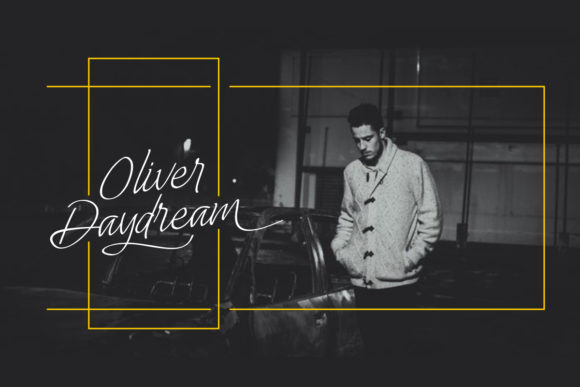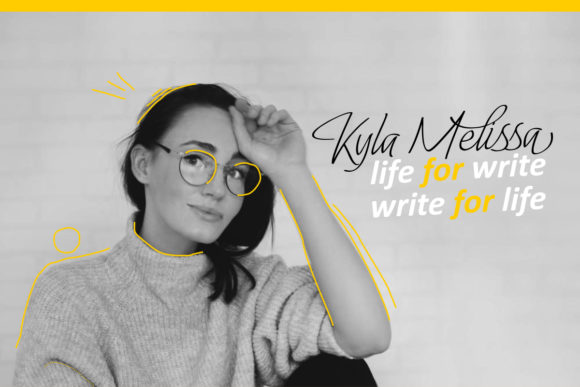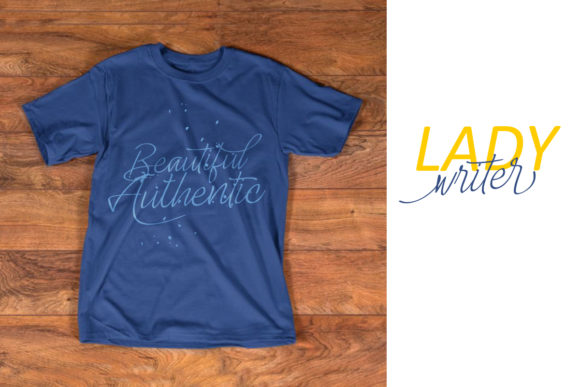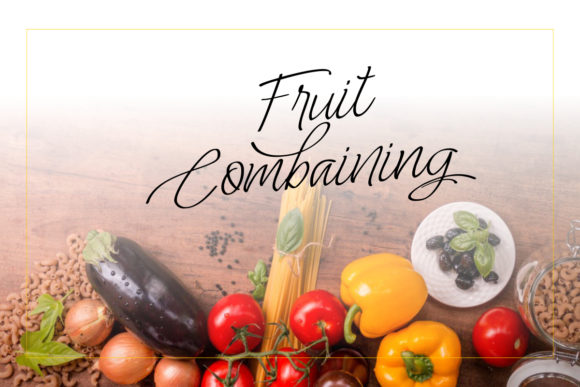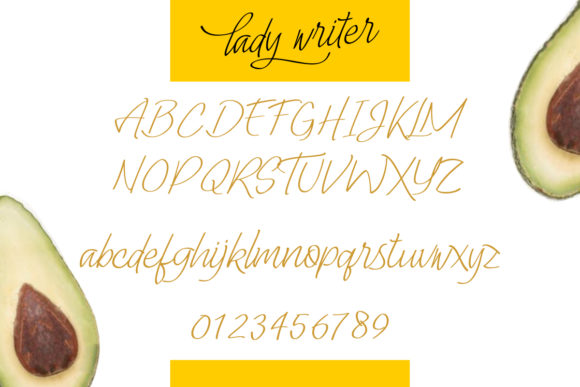
HomeScript FontsLady Writer Skinny Font Script Fonts Lady Writer Skinny Font FacebookXPinterestWhatsApp Lady Writer Skinny Font Poster 2 Lady Writer Skinny Font Poster 3 Lady Writer Skinny Font Poster 4 Lady Writer Skinny Font Poster 5 Lady Writer Skinny Font Poster 6 About Lady Writer Skinny Font Lady Writer Skinny is a sophisticated script font. Get inspired by its unique fresh style! DOWNLOAD ON CREATIVE FABRICAThis font is sold and delivered by Creative Fabrica. Font Canyon may earn a commission if you buy through this link. People also explored Southport Font Bajt Rounded Aljameela Font Carick Font Pink Flowers Font Billie Elishe Font Zell Font Tallented Font Rainbow Children Font 297 0 TagsLady Writer Skinny Font Previous articleLa Mas Bonita FontNext articleMisyalli Font LEAVE A REPLY Cancel reply Comment: Please enter your comment! Name:* Please enter your name here Email:* You have entered an incorrect email address! Please enter your email address here Website: Save my name, email, and website in this browser for the next time I comment. Personal Use Free New Normal Personal Use Free Read more about this font Brandon Bromley Personal Use Free Read more about this font Boronic Personal Use Free Read more about this font Sea Gardens Personal Use Free Read more about this font BLOG Free vs Paid Fonts: Why Investing in Premium Fonts Is Worth It Free vs Paid Fonts: Why Premium Fonts Are Worth It in 2025 The debate of free vs paid fonts continues in the design world. While... Exploring Font Trends The 10 Best Handwriting Fonts to Add Personality to Your Designs Best Fonts for T-Shirt Design – Top 2025 Picks